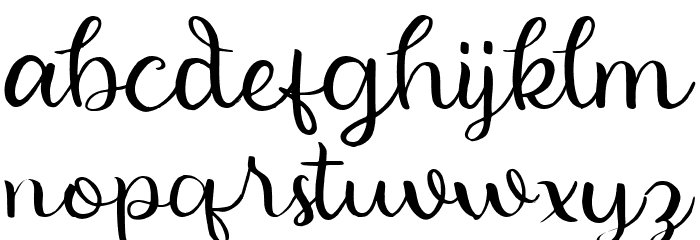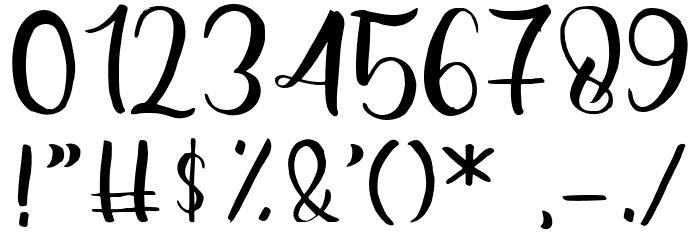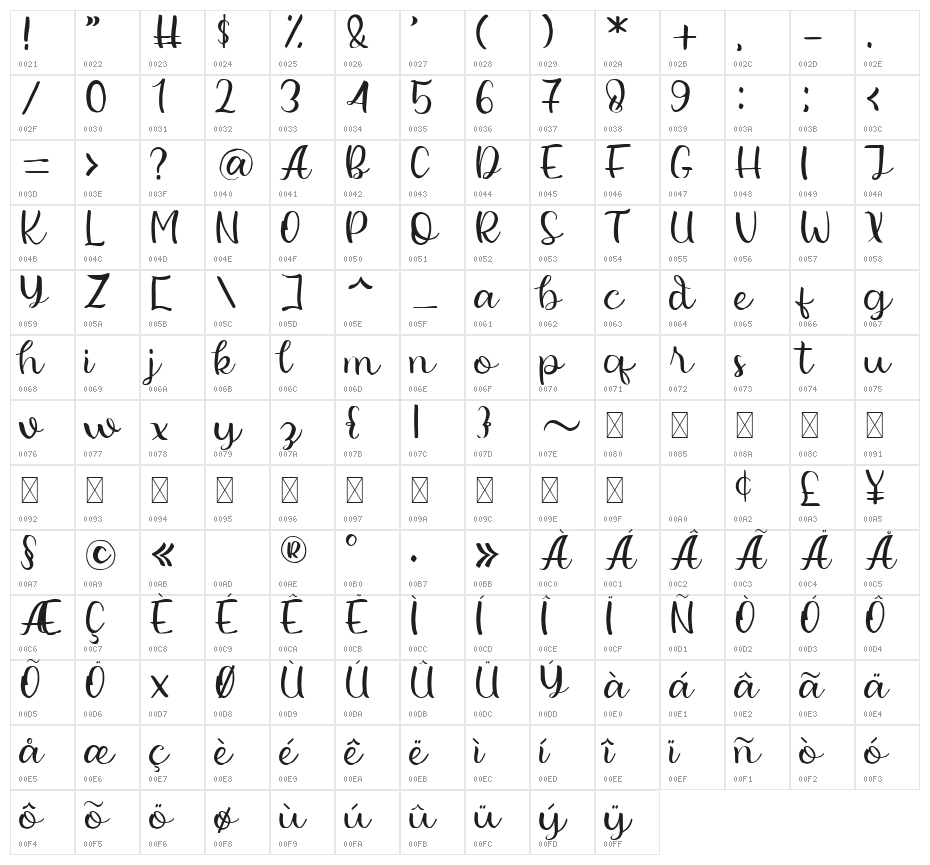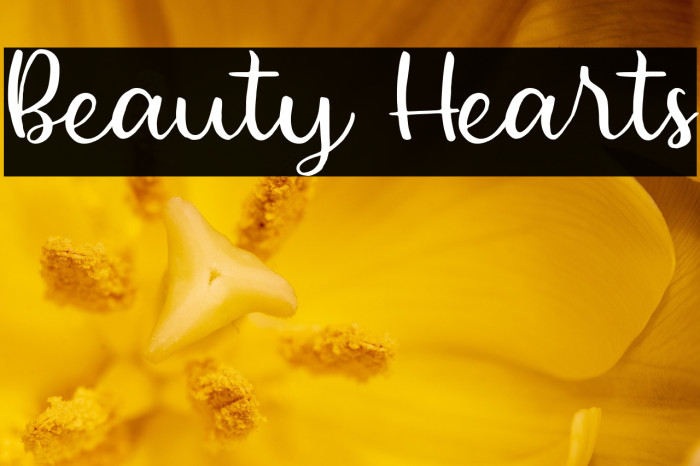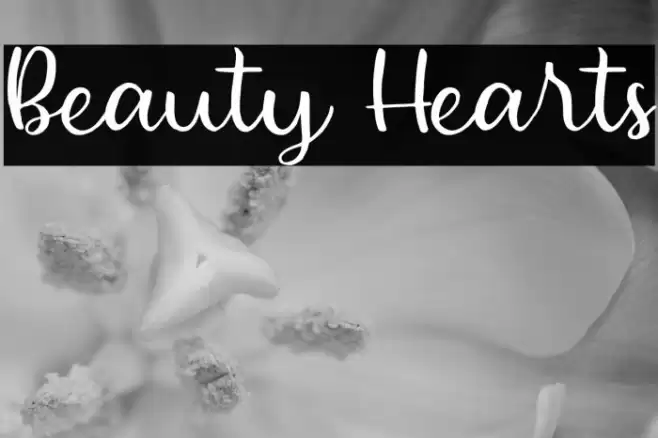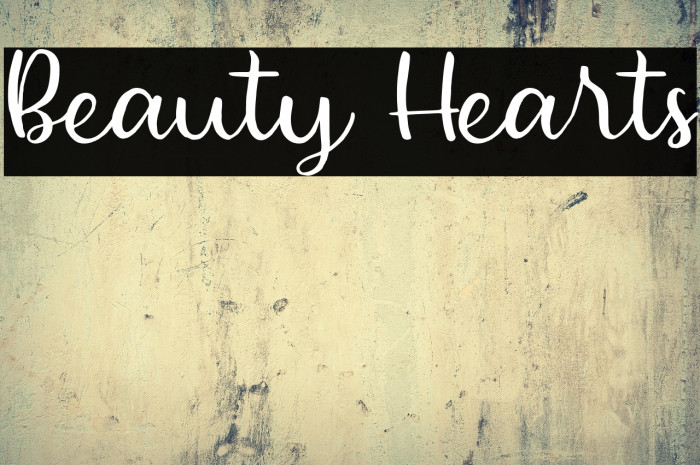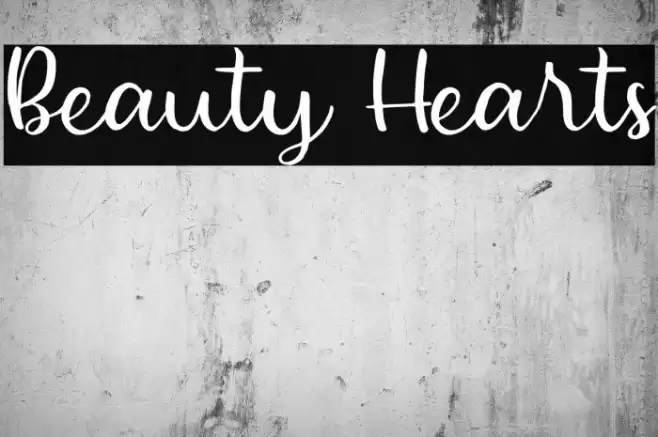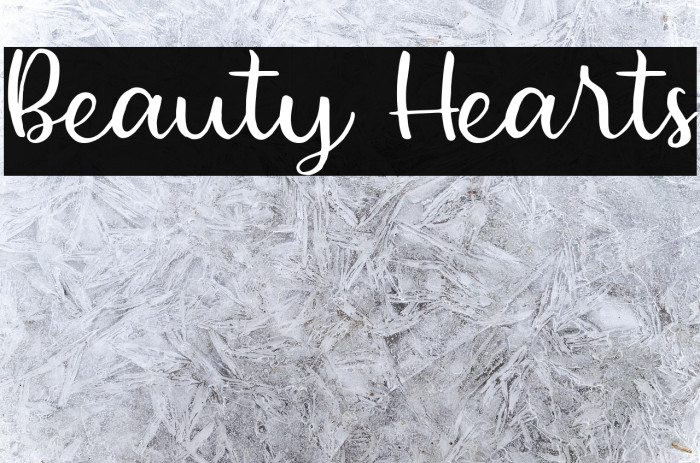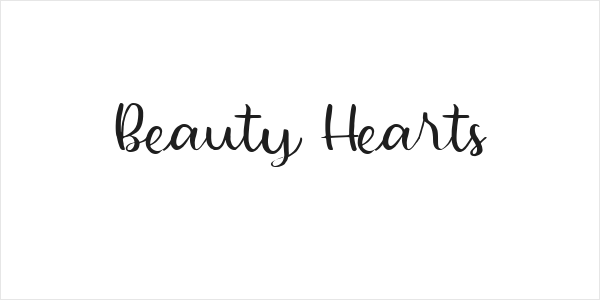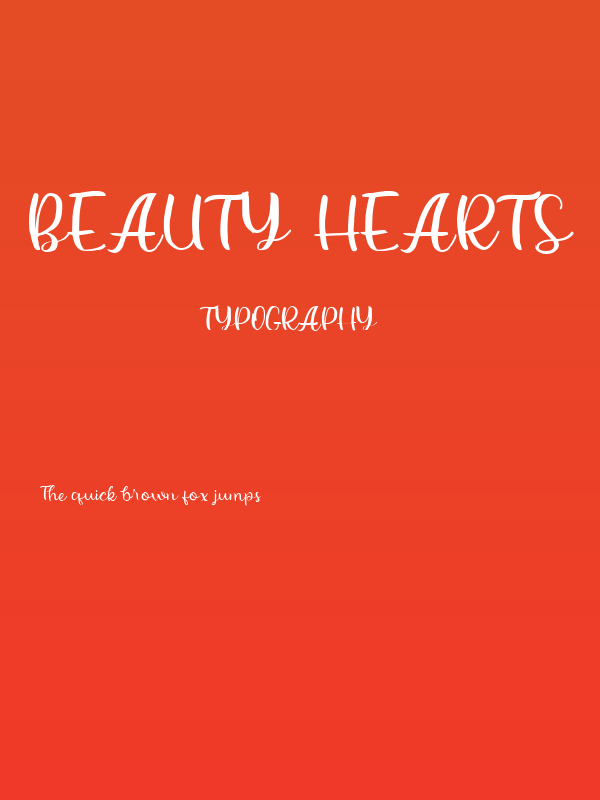
Beauty Hearts Font
This font features a playful and elegant script style, characterized by its flowing, connected letters that mimic the fluidity of handwriting. The uppercase letters are bold and slightly slanted, adding a dynamic feel, while the lowercase letters maintain a consistent rhythm with smooth curves and loops. The numbers are distinct and easy to read, with a slight flair that complements the overall style. Special characters are creatively integrated, maintaining the font's whimsical nature. This font is perfect for adding a personal touch to any design, evoking a sense of warmth and creativity.
A playful and elegant script font with flowing, connected letters.
- Proposed Projects: Ideal for wedding invitations, greeting cards, branding, and social media graphics.
- Use Case: Logos, Invitations, Social Media